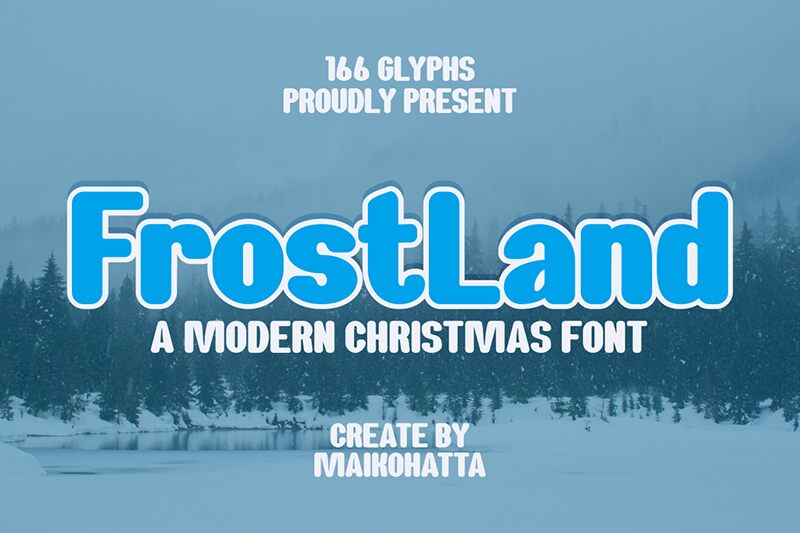
Frost Land
Frost Land font by Gilang Ternadho is a free sans serif font that embodies a geometric and modern design with rounded letters. Cohesive and friendly, the visual features of this font make it extremely easy to read. Its approachable look evokes users’ curiosity inviting them to explore your products, services, or whatever you showcase with this special tool.
Use Frost Land for body text to add an effortless reading experience to your websites, mobile apps, books, catalogs, magazines, newsletters, and annual reports. Create simple yet attractive headlines for posters or inspirational quotes or use them for product descriptions/labels as well as packaging design.